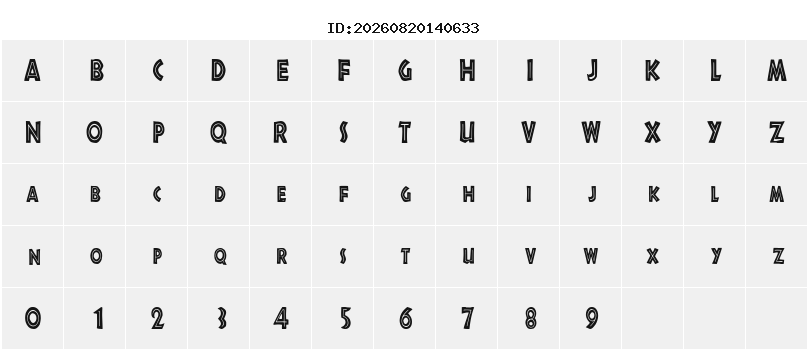
ShakazuluCondensed Preview
• Font Name: ShakazuluCondensed
• Full Font Name: ShakazuluCondensed
About ShakazuluCondensed.ttf
ShakazuluCondensed.ttf is a modern, elegant sans-serif font designed for ultimate readability and visual harmony. Perfect for branding, headlines, web design, and print materials.